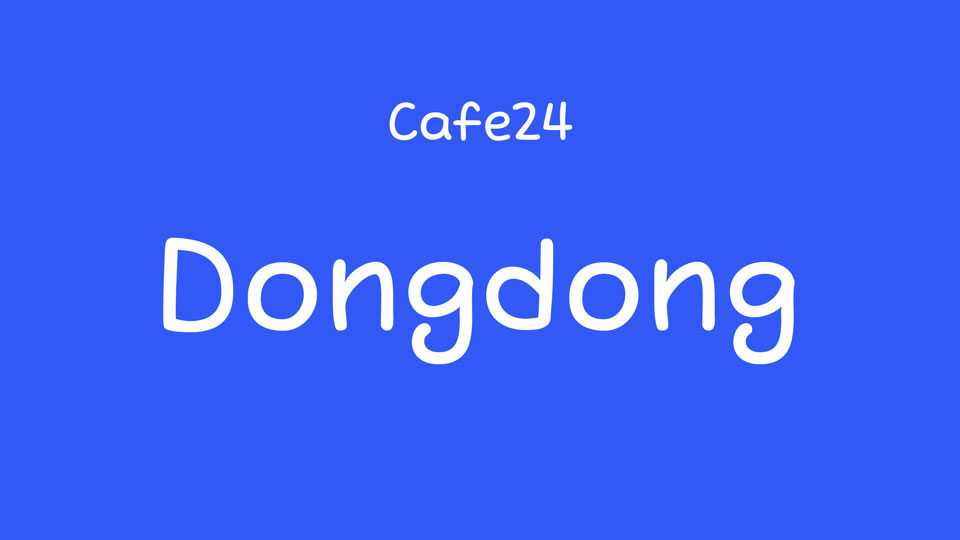
Download Cafe24 Dongdong font, a cute and whimsical handwritten typeface with a distinct personality and a delightful twist wits its smooth, rounded letterforms.